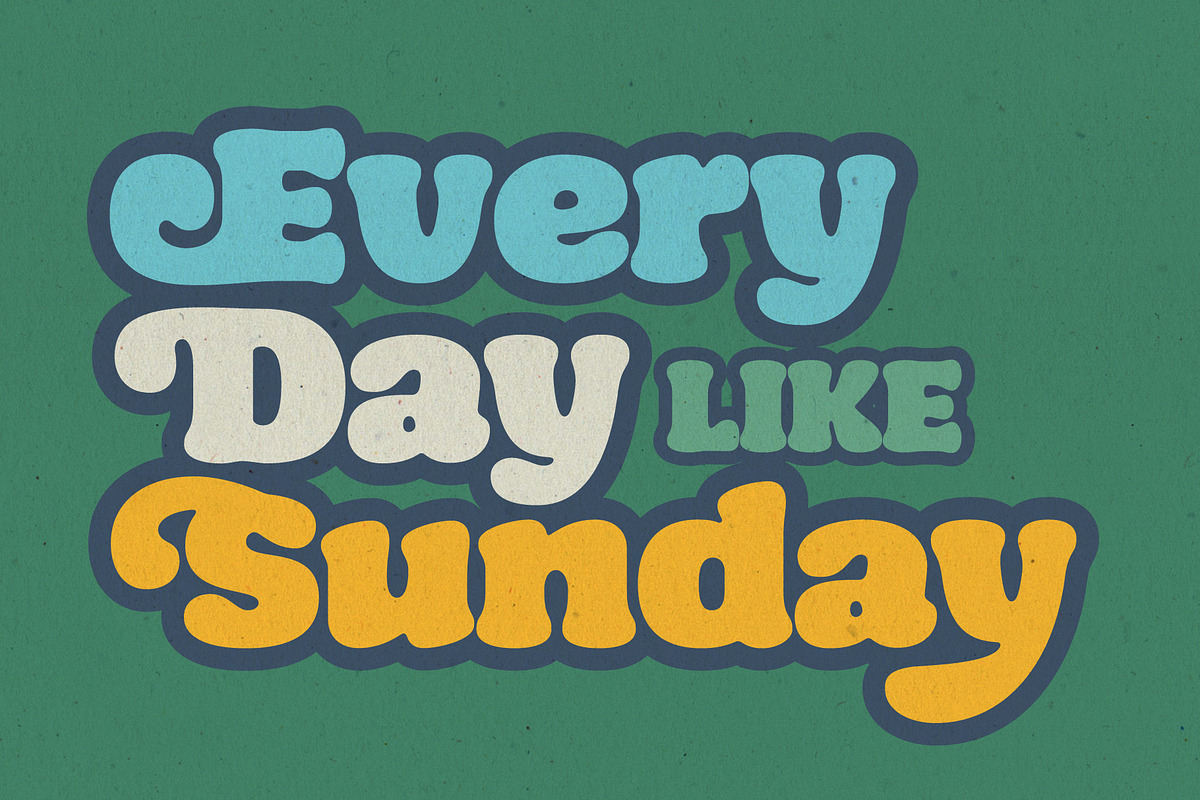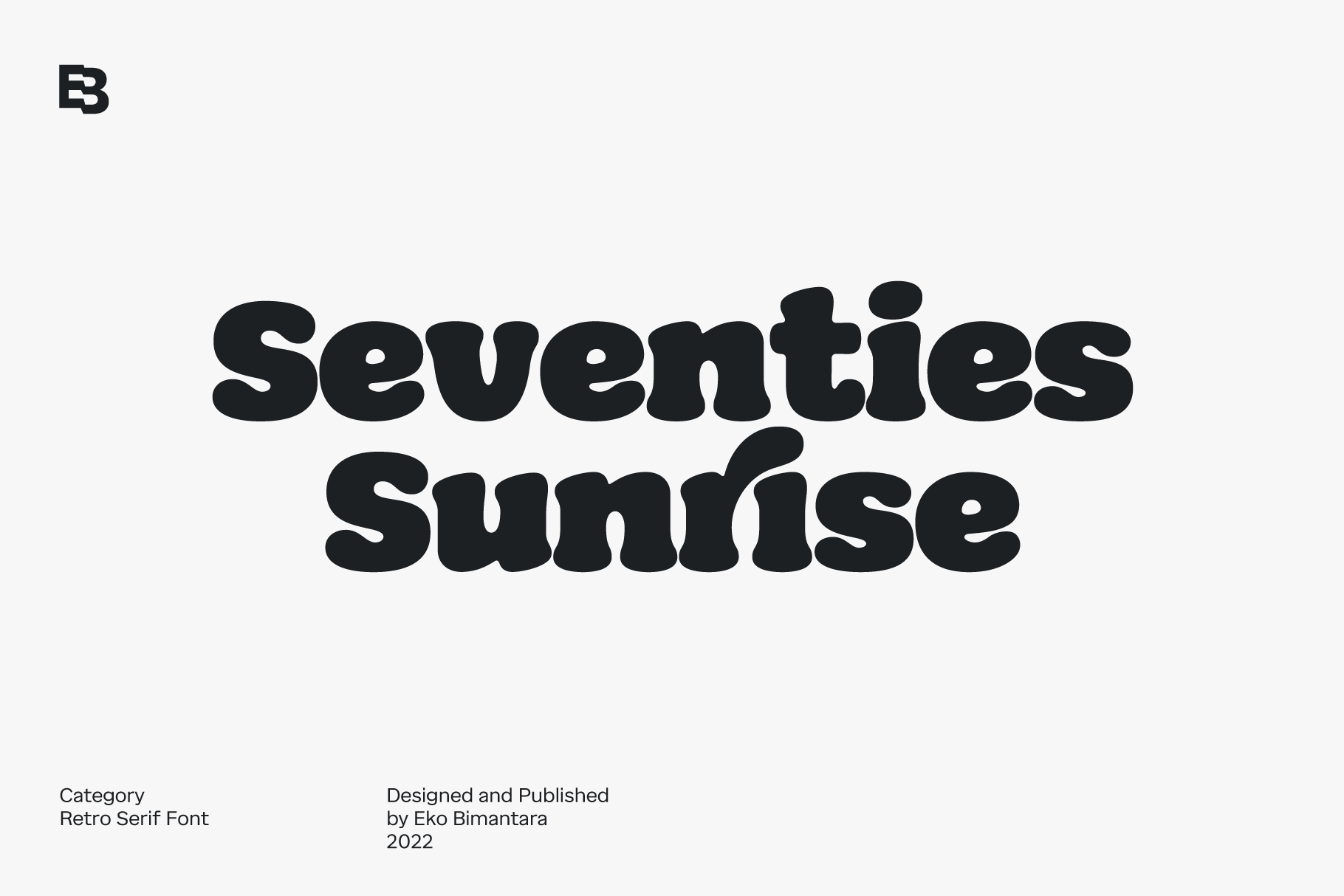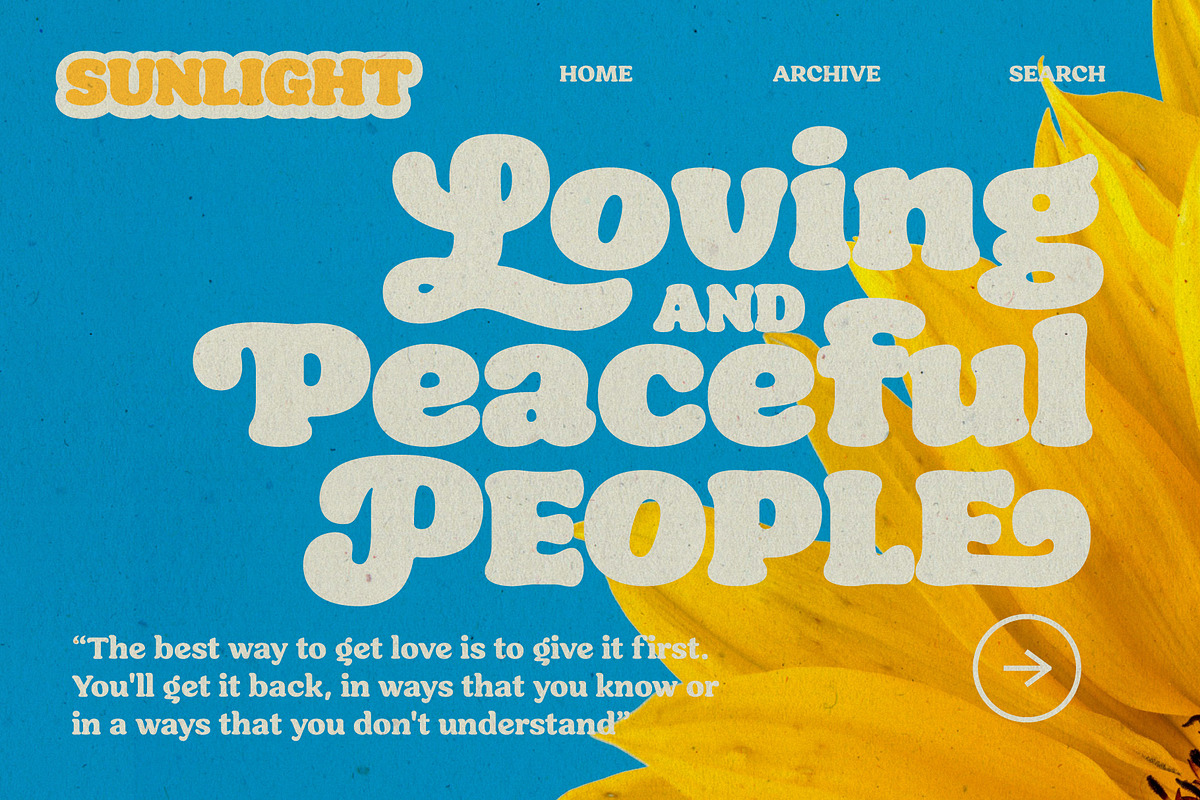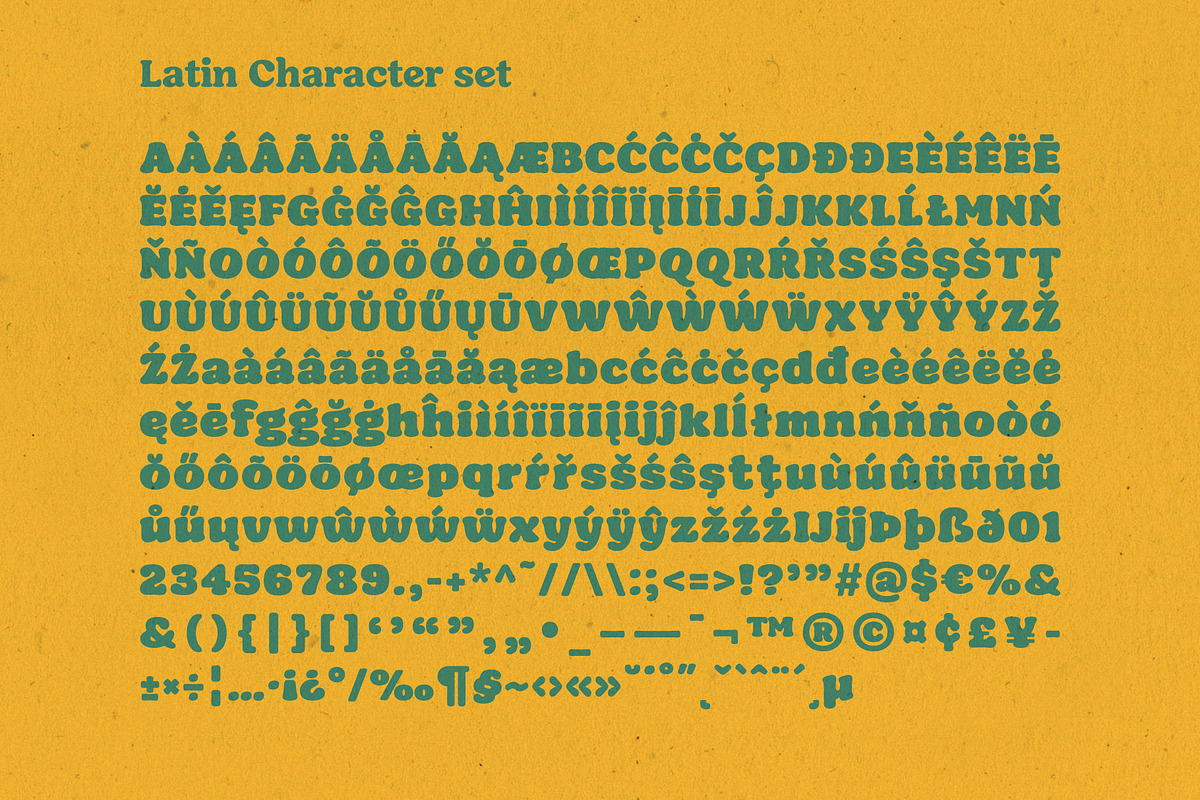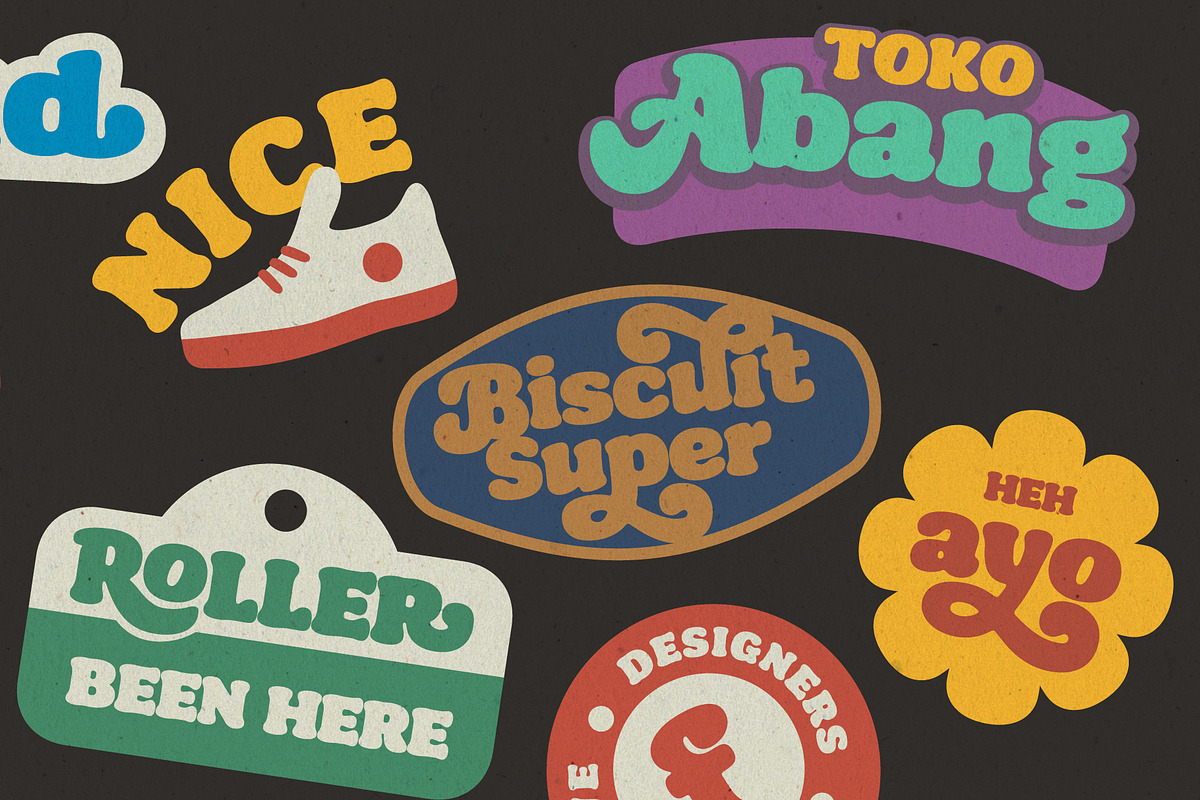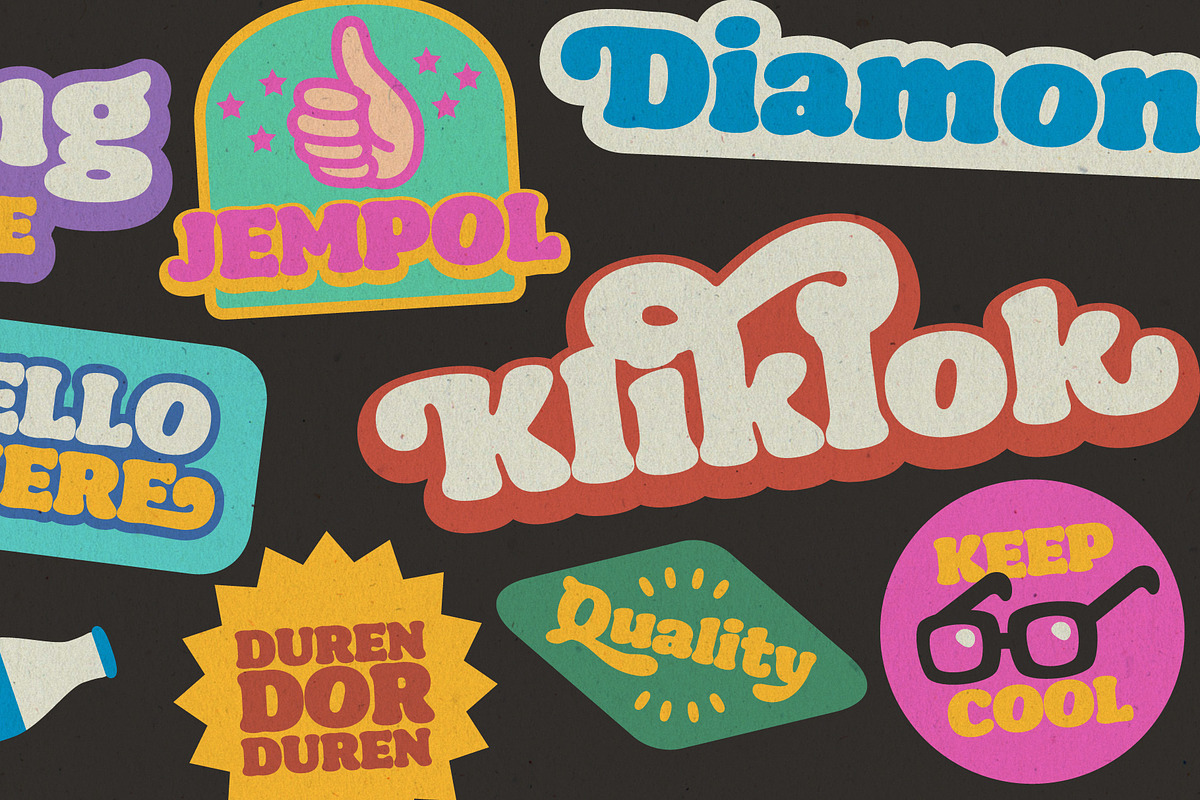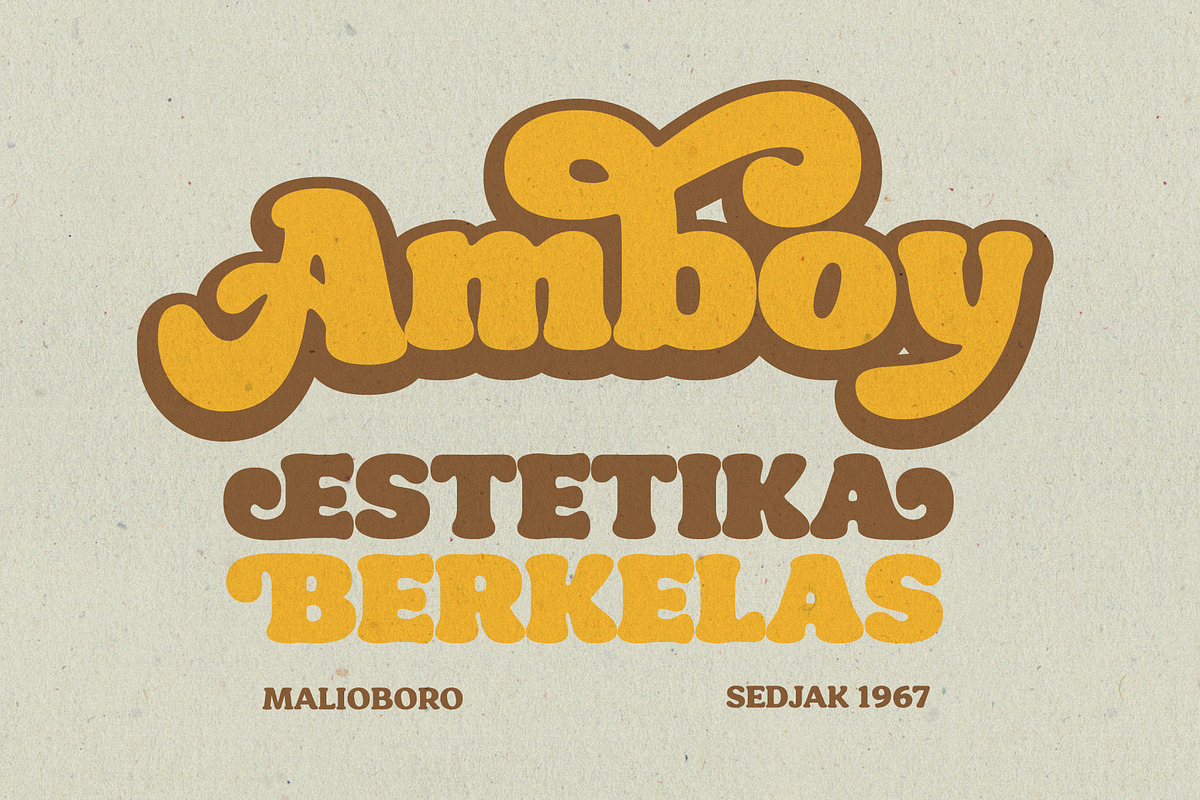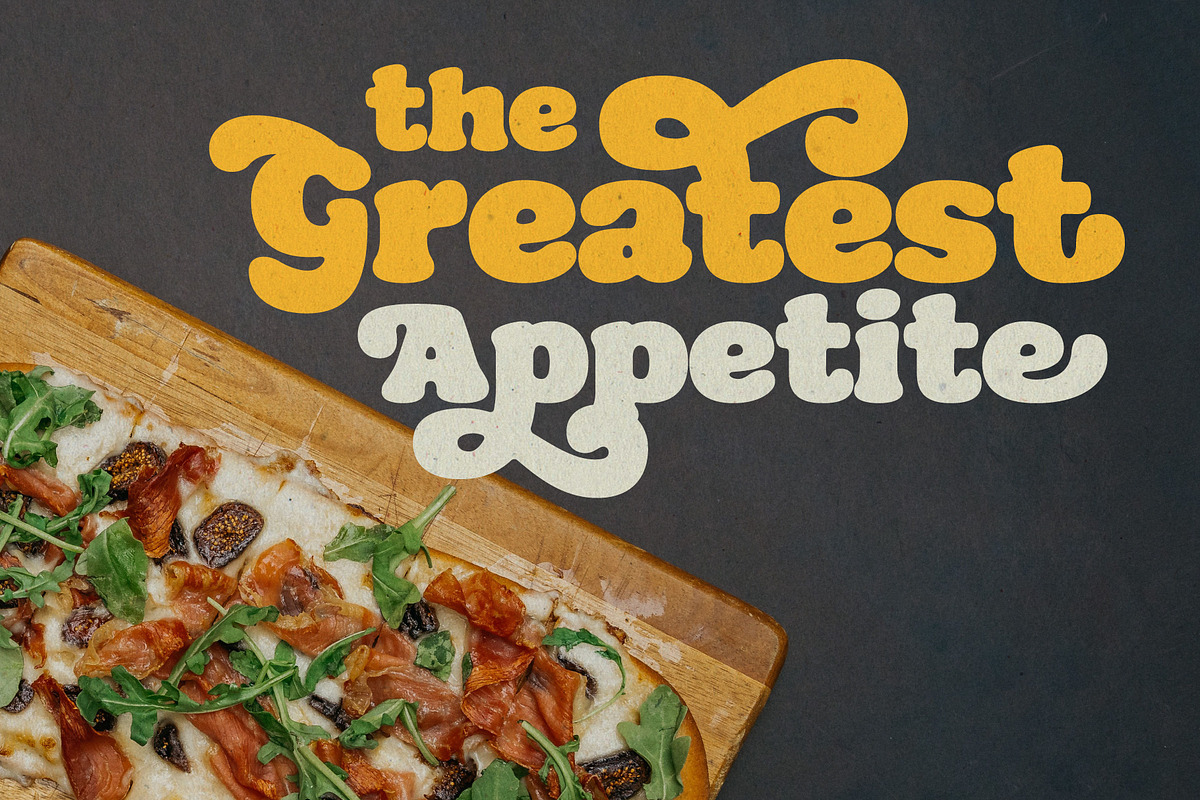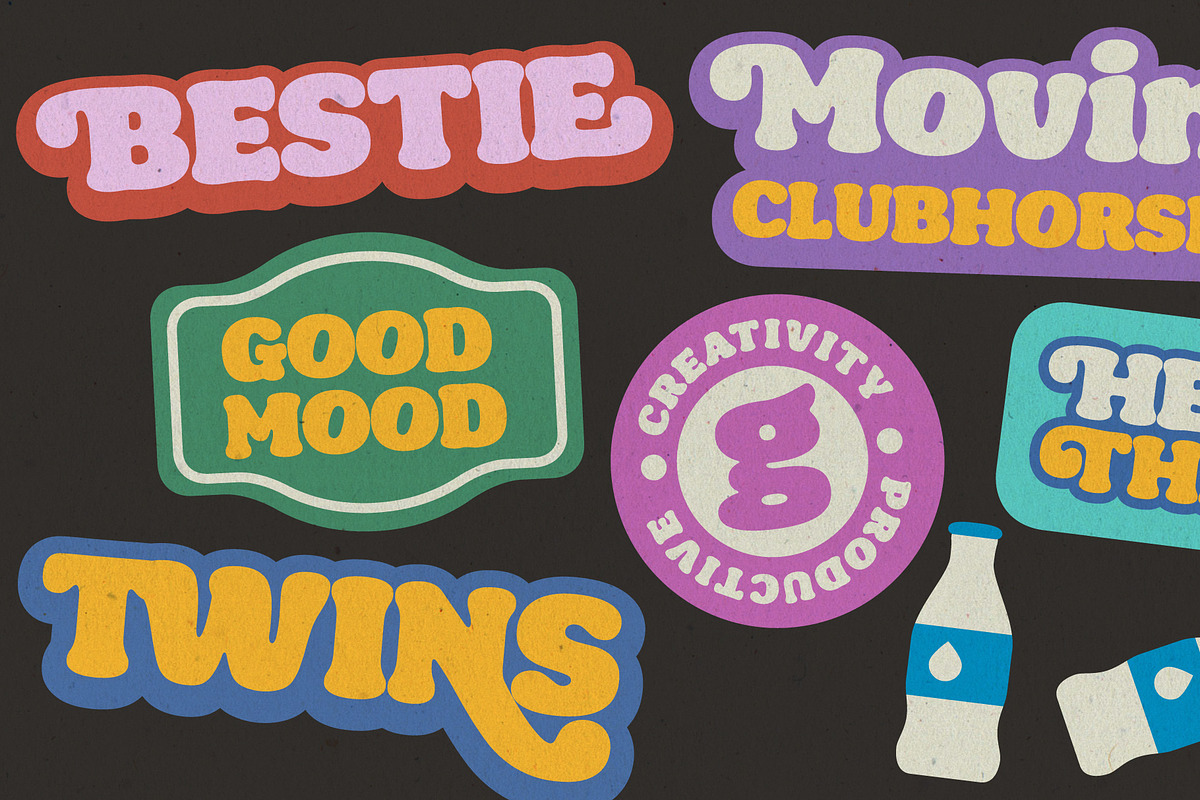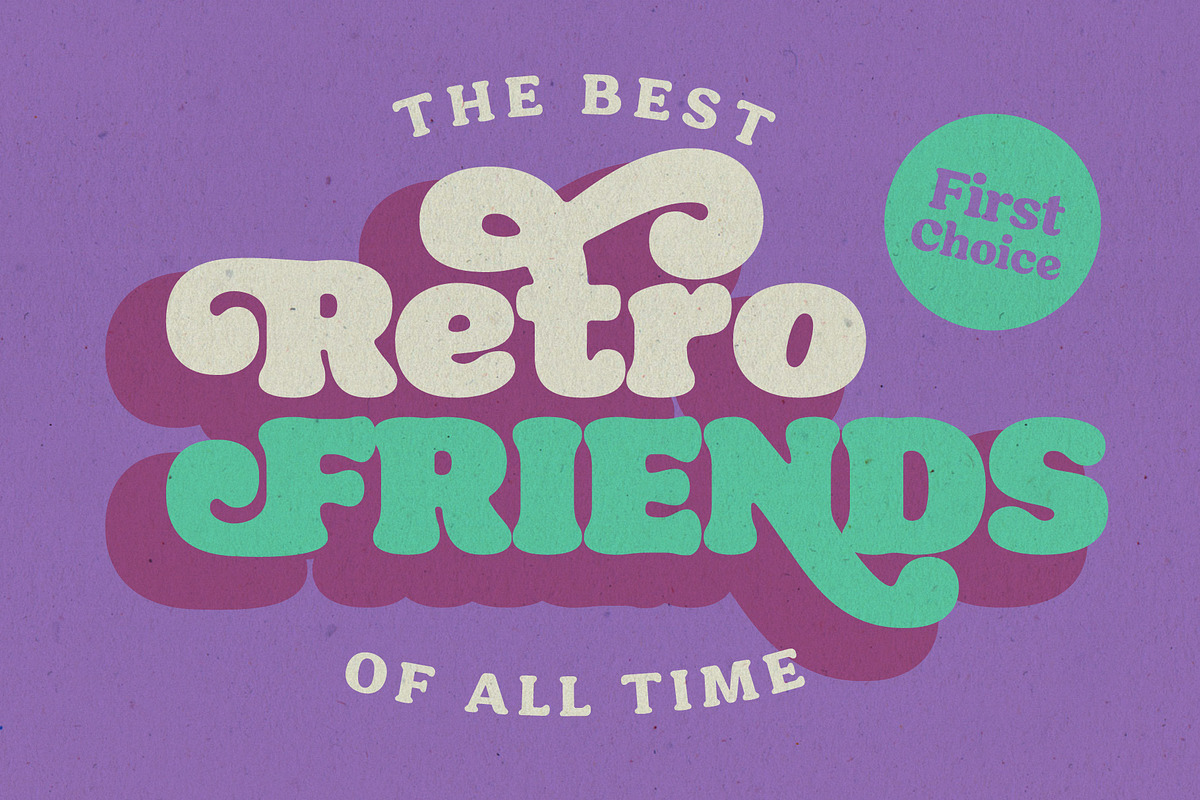
Seventies Sunrise; Retro Fonts
Seventies Sunrise is a bold, fun, luscious retro display font. Great choice for your seventies design theme, fit for various design and creative purposes including logo, branding, product, titles, headline, website, posters, stickers, large display, merchandise and others.
Complete character set with 540+ glyphs, which cover broad latin languages.
Ample of opentype feature choices such as; Stylistic Alternates, Discretionary Ligatures, Stylistic Sets from .ss01 to .ss09